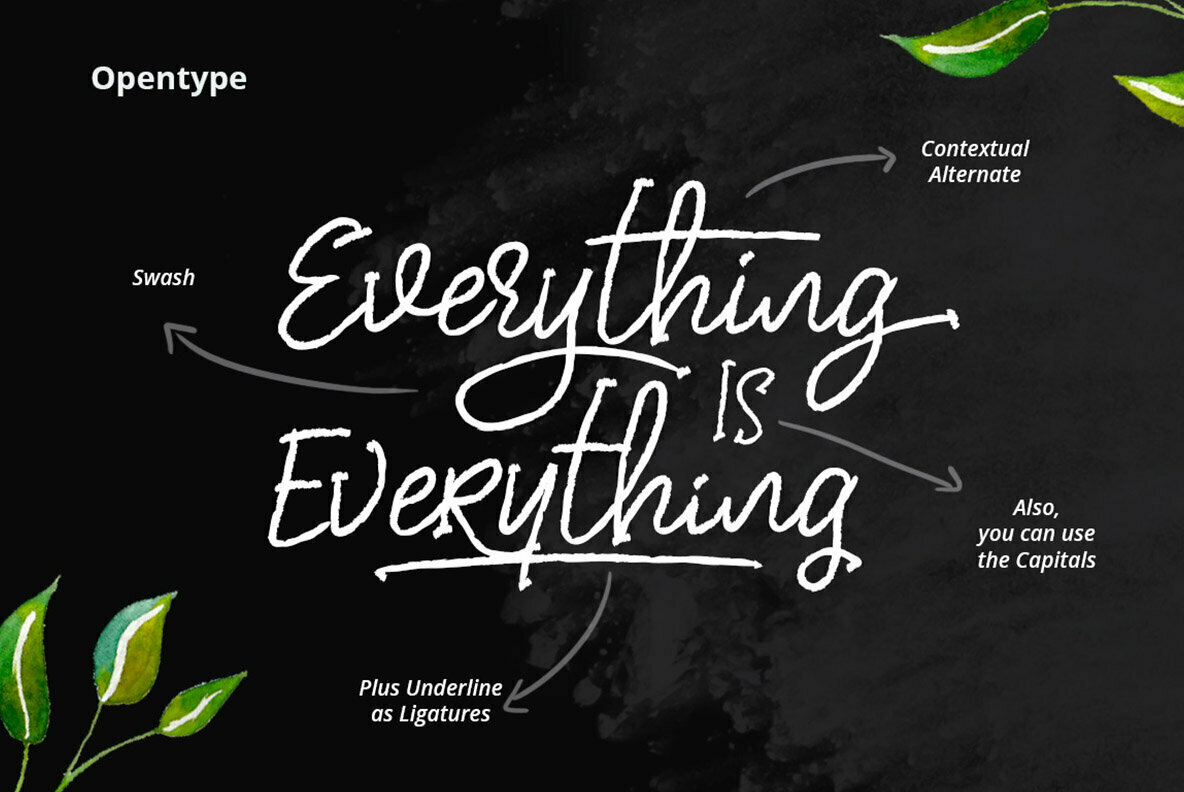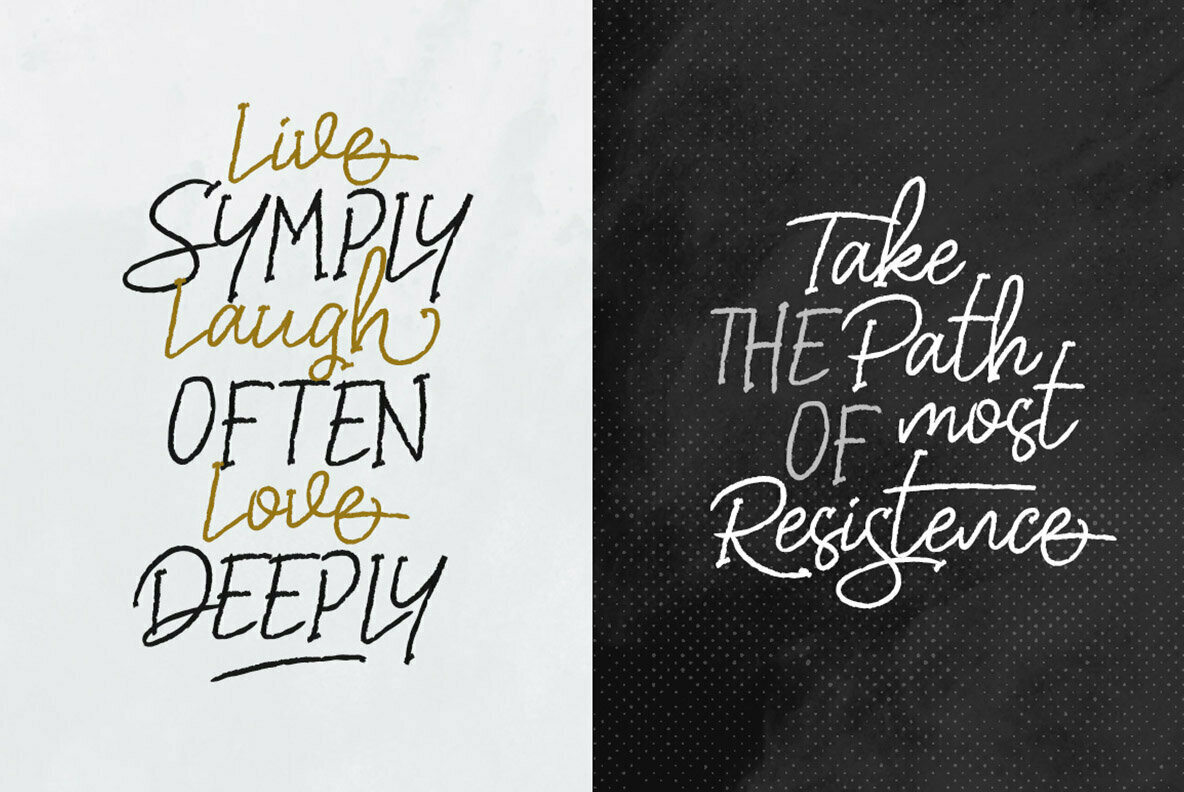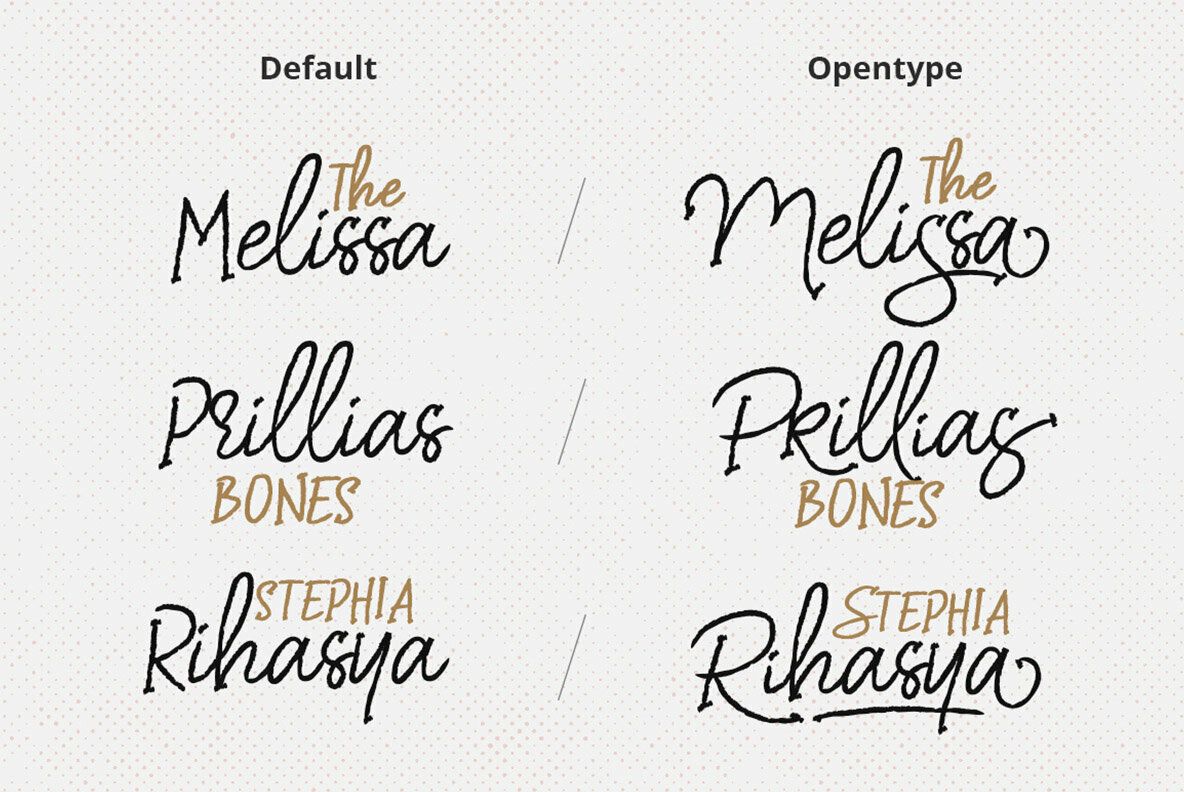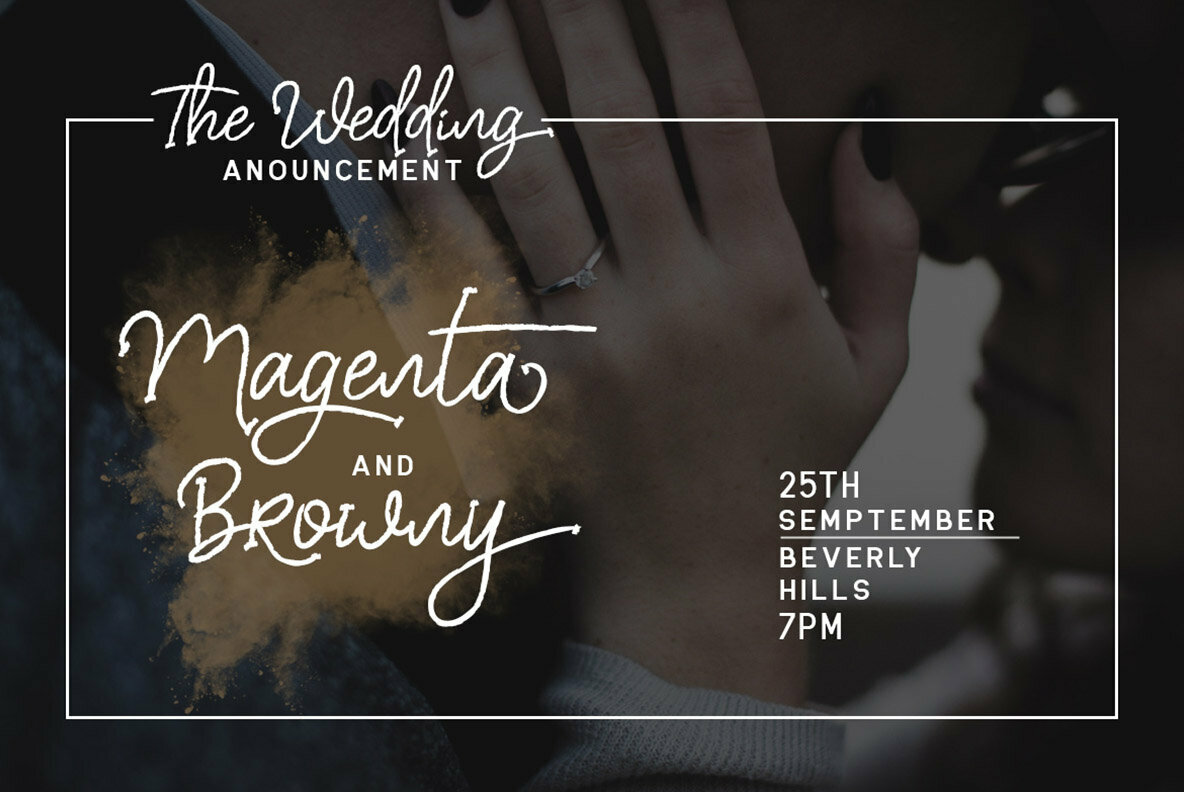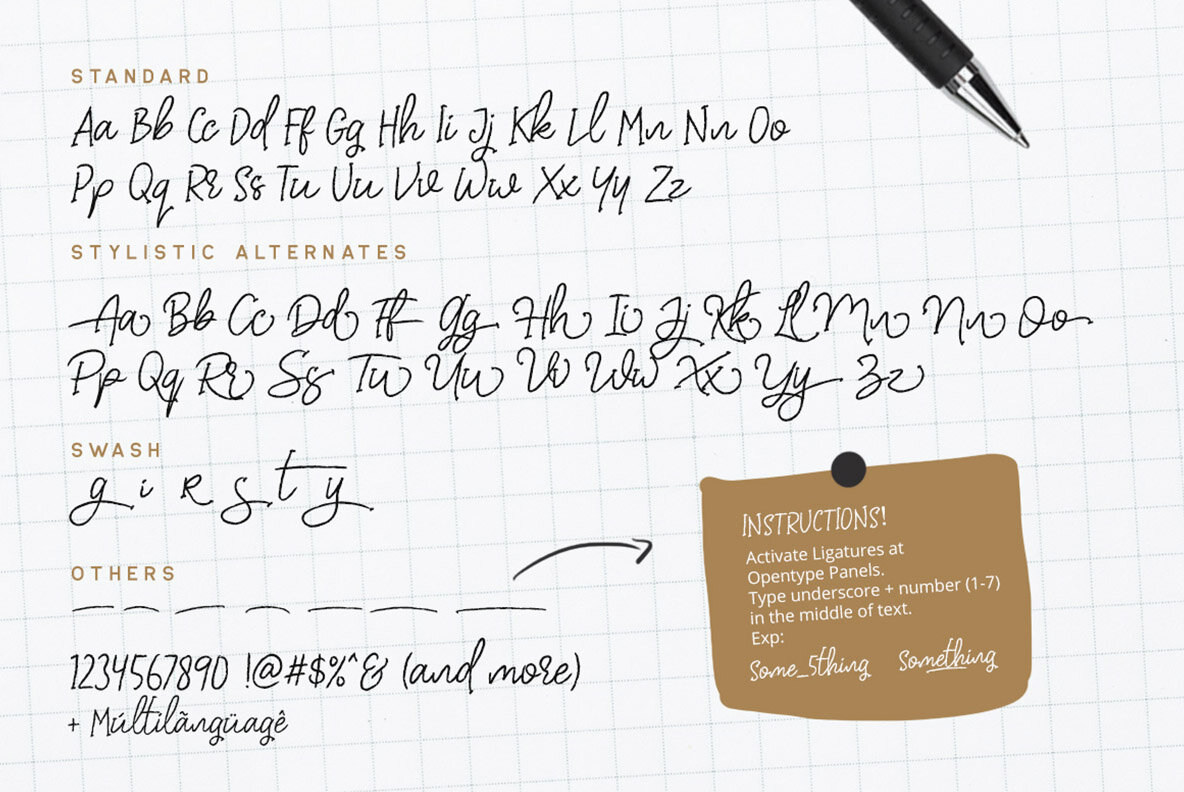
Dear Disya Font
Dear Disya
Ideal for those seeking to infuse a personal touch into their projects, Dear Disya offers an elegant handwritten feel. Designed to mirror bespoke handwriting, it features charming elements like ligatures, stylistic alternates, and swashes. These unique characteristics make it a perfect choice for crafting personalized invitations, chic logos, or artistic branding materials.Dear Disya: Versatile Handwritten Font